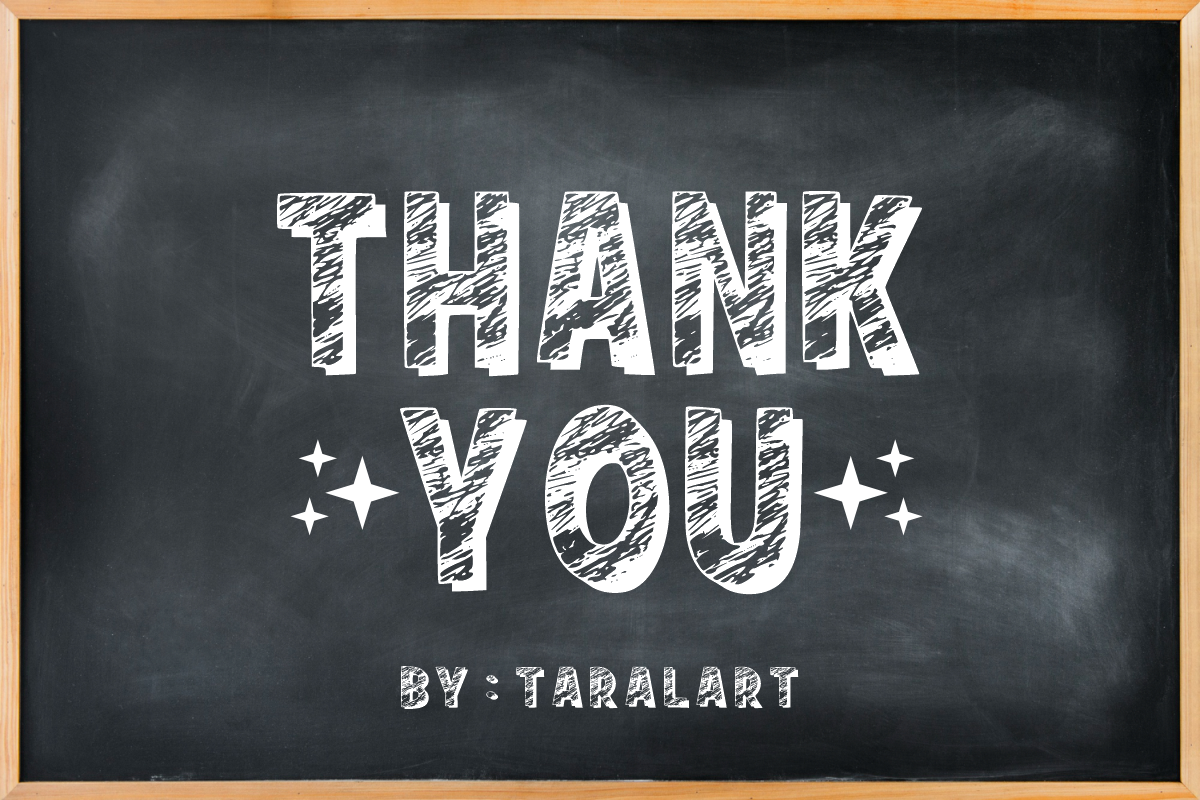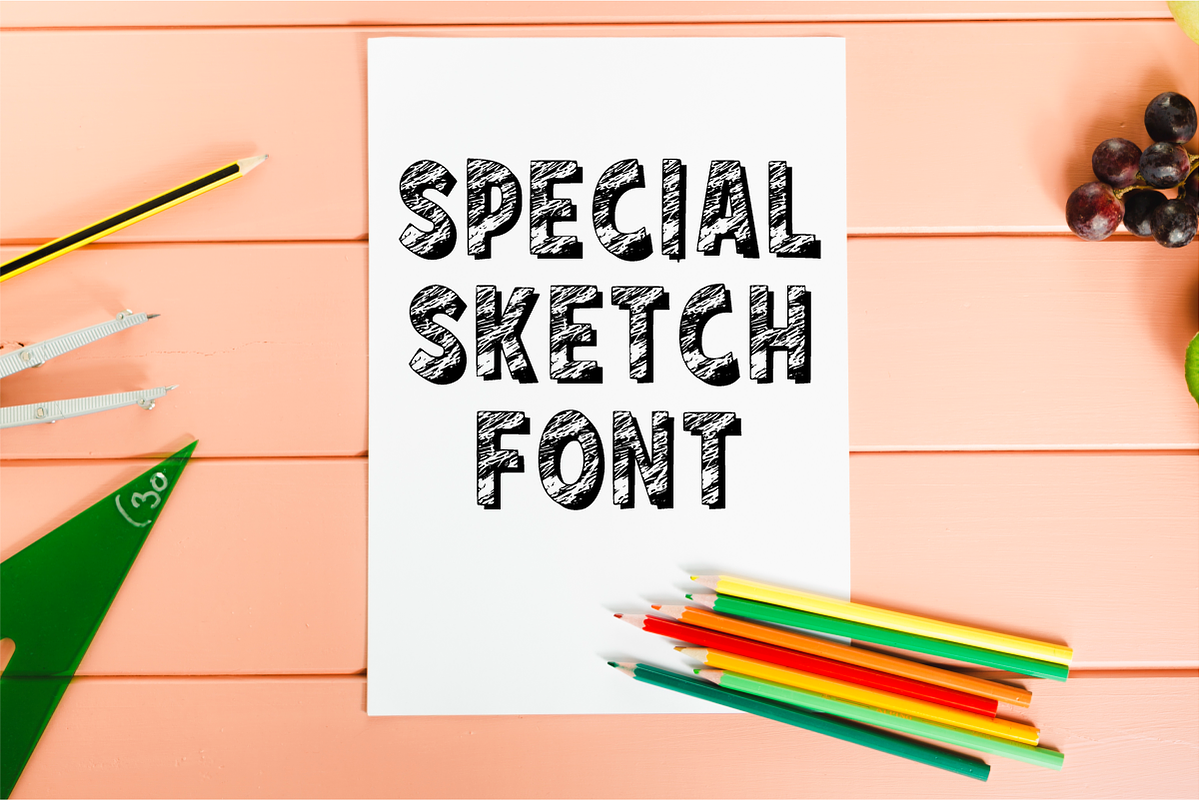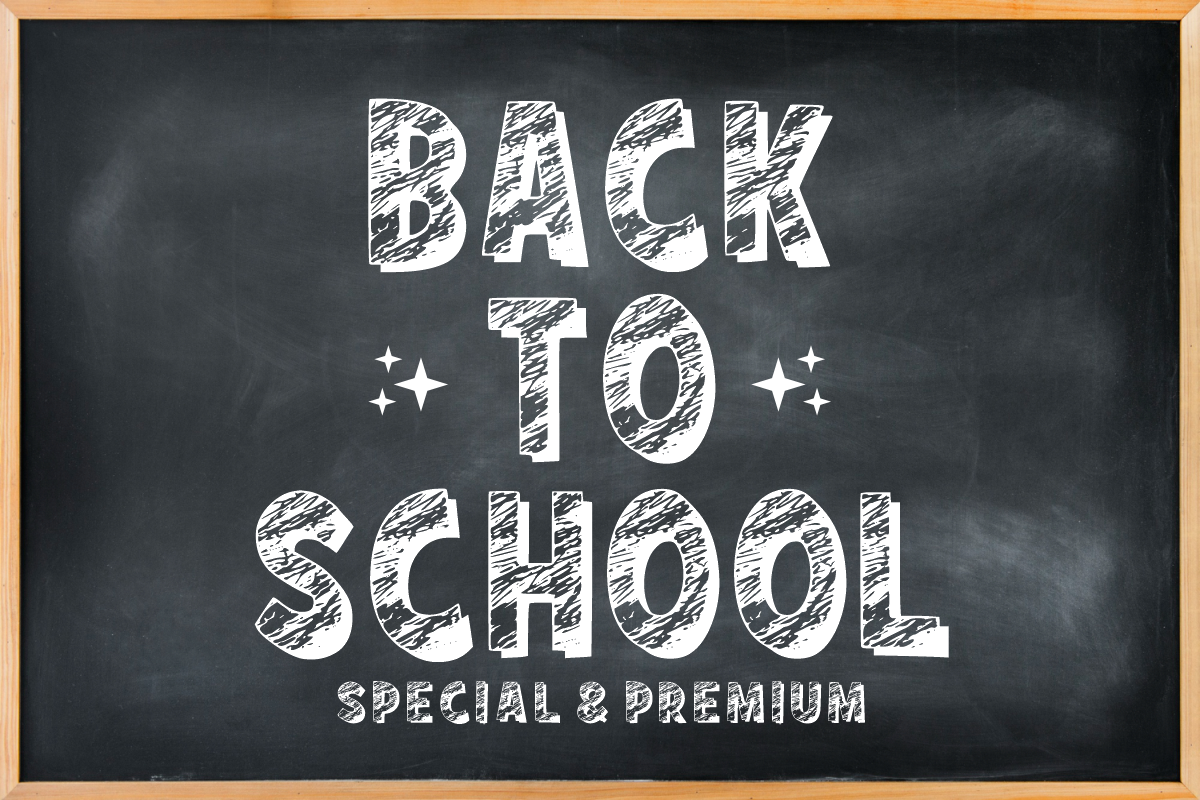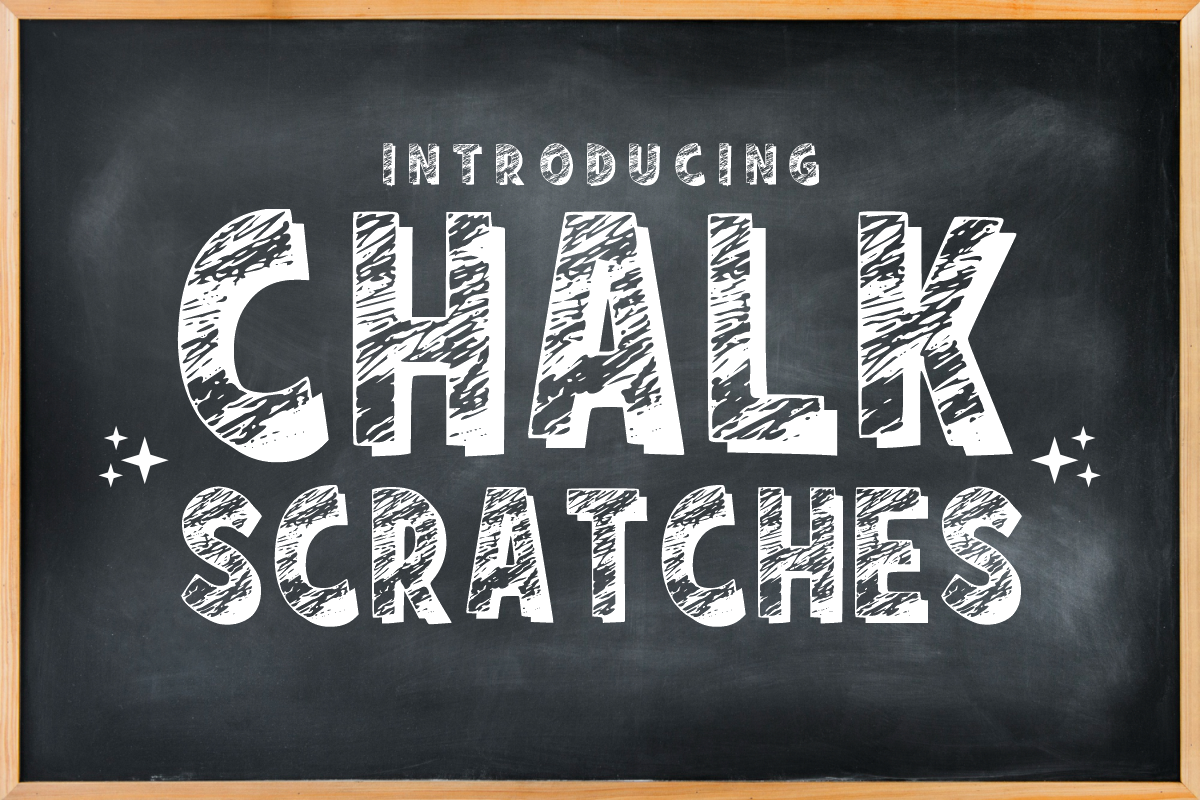
Chalk Scratches - Chalkboard Font
Chalk Scratches is an authentic, textured display font featuring bold block letters filled with realistic chalk scribble patterns. Perfect for back-to-school designs, café menu boards, and rustic branding, this handmade font gives your projects an instant chalkboard feel. The high-quality vectors retain rich texture details while remaining easy to use in any design software.
Uppercase Character Set
Numbers & Basic Punctuation
Ideal For:
Café, restaurant, and bakery menu displays
School projects and teacher classroom resources
Rustic wedding signage and party decorations
Custom t-shirts, apparel, and merchandise
Vintage-themed logos and product packaging
High-impact social media graphics and flyers